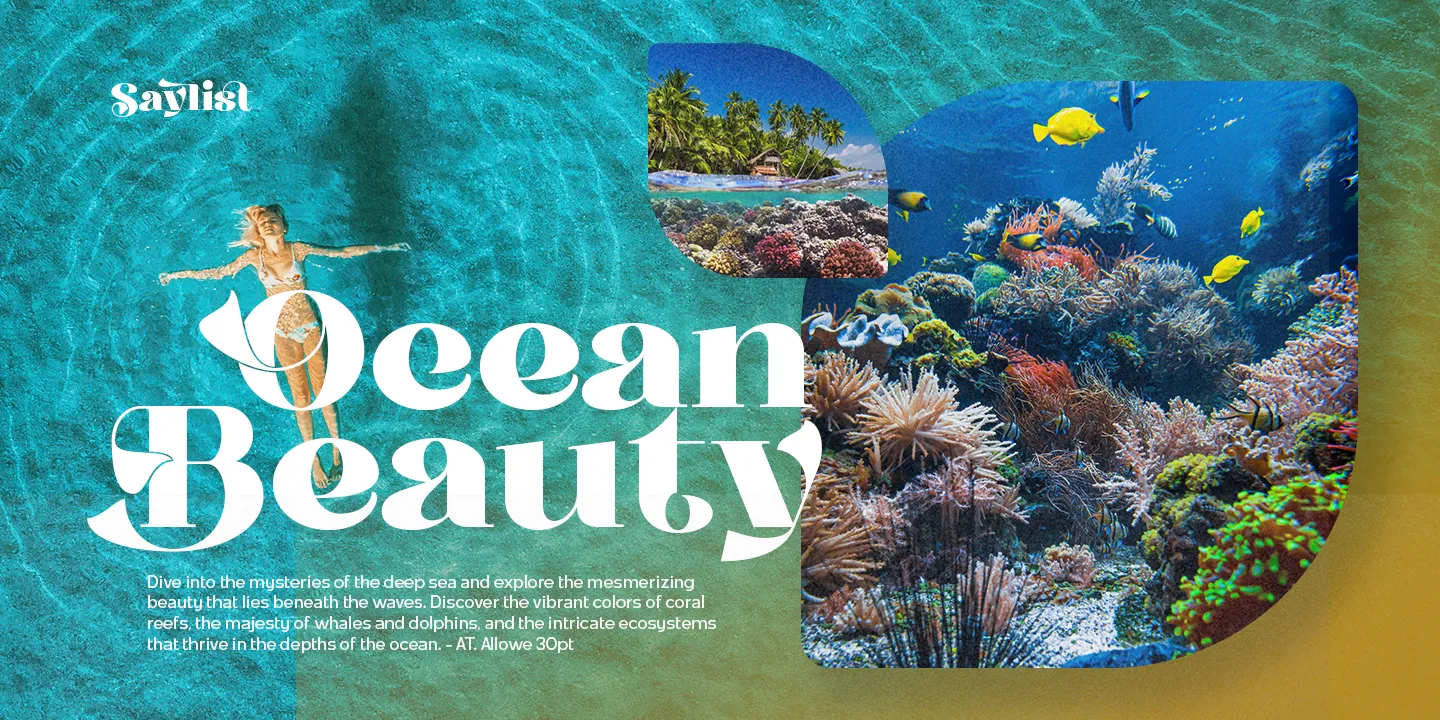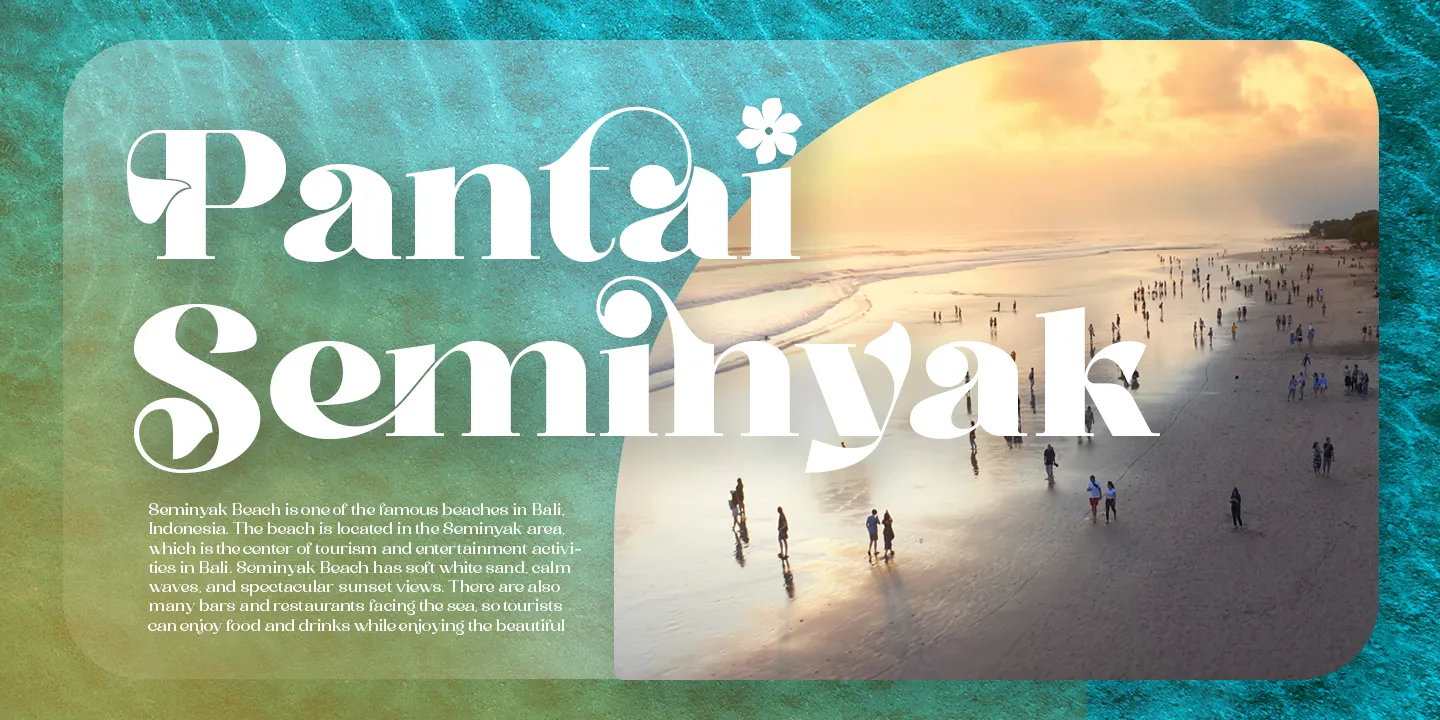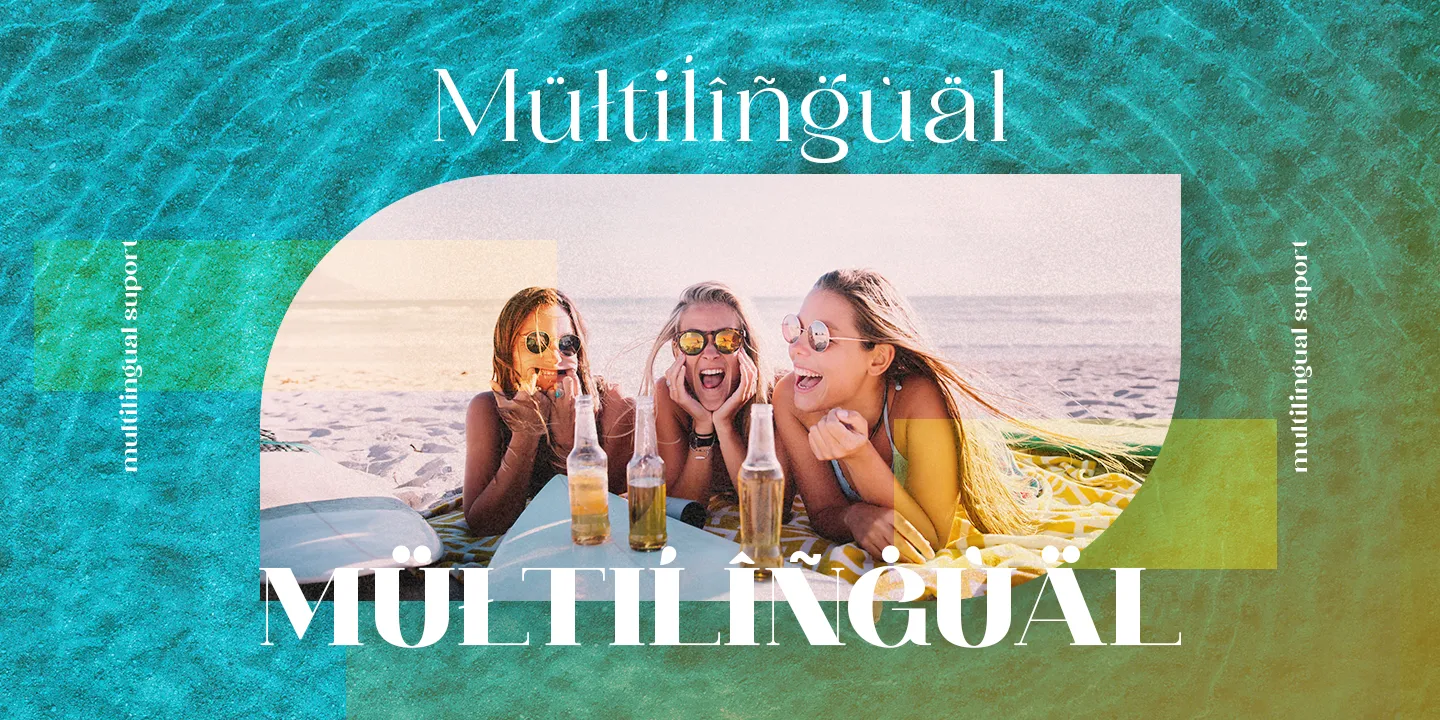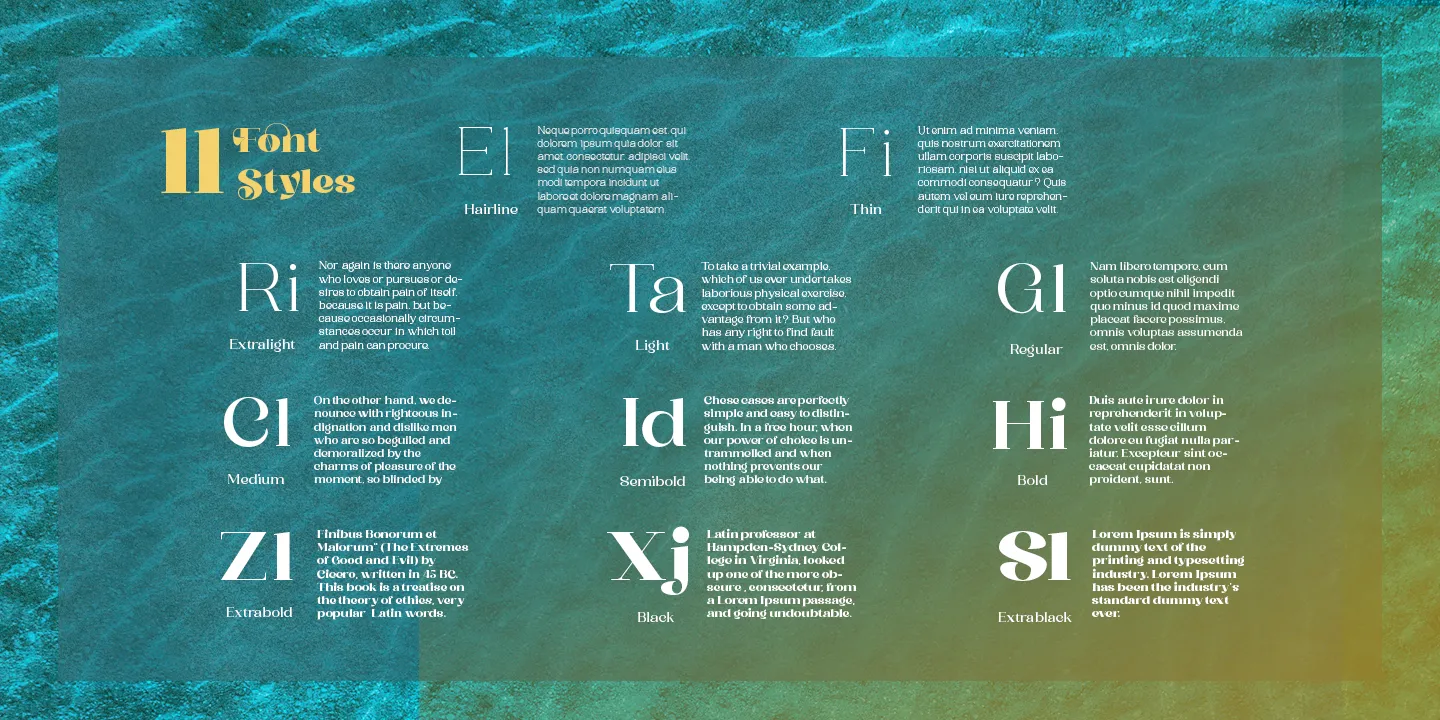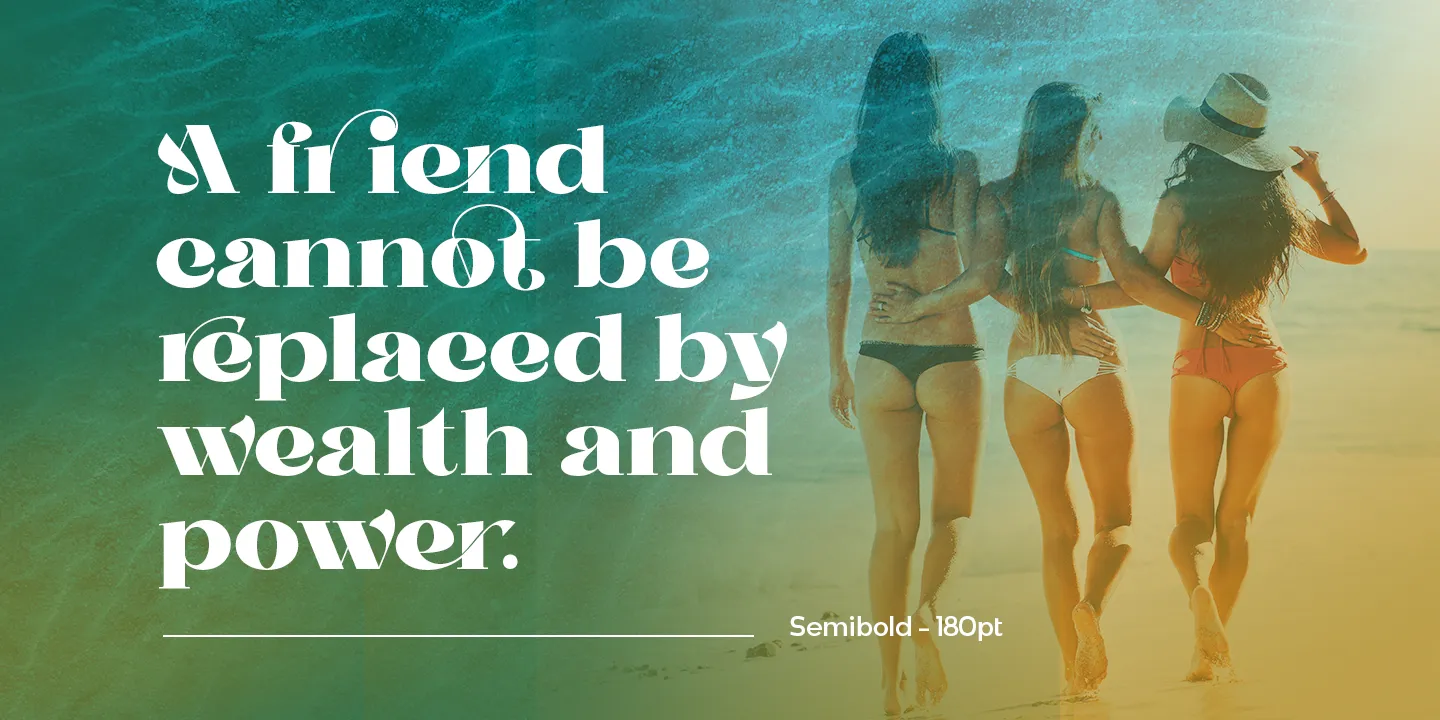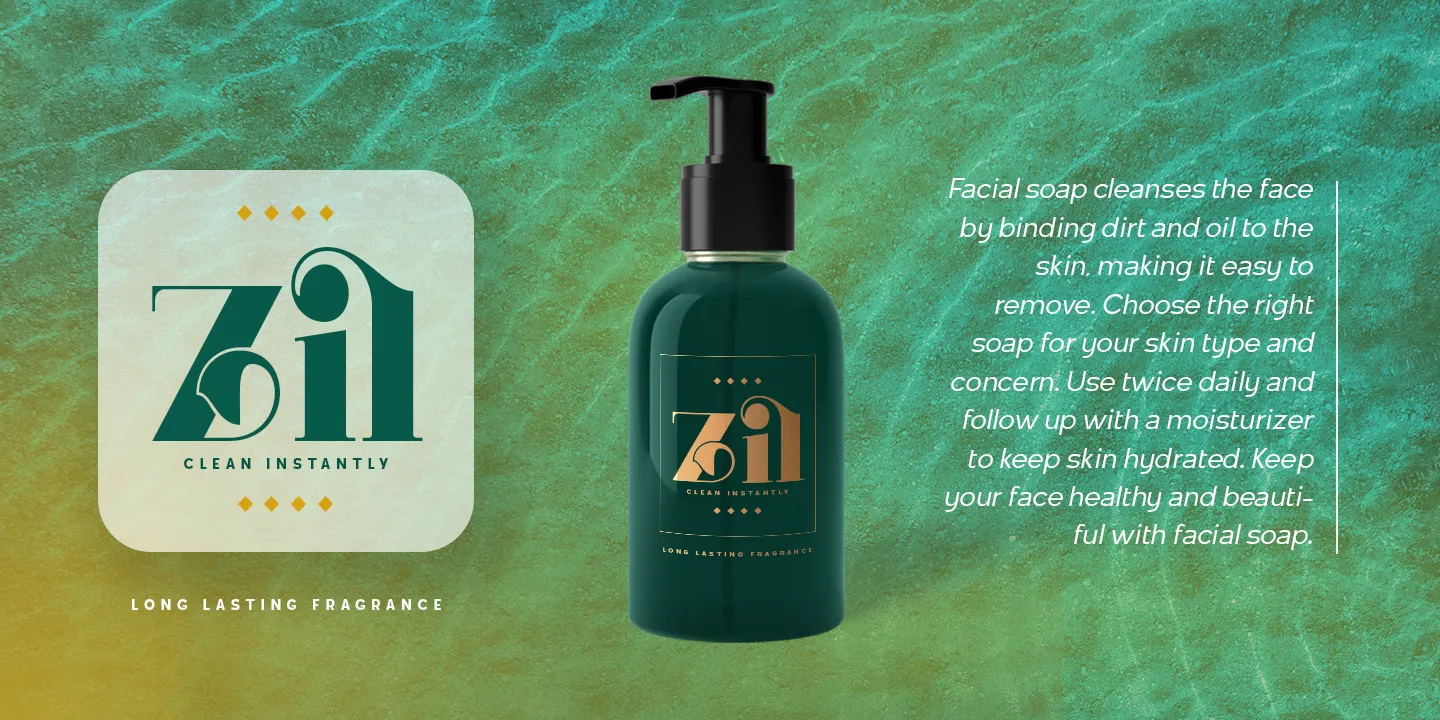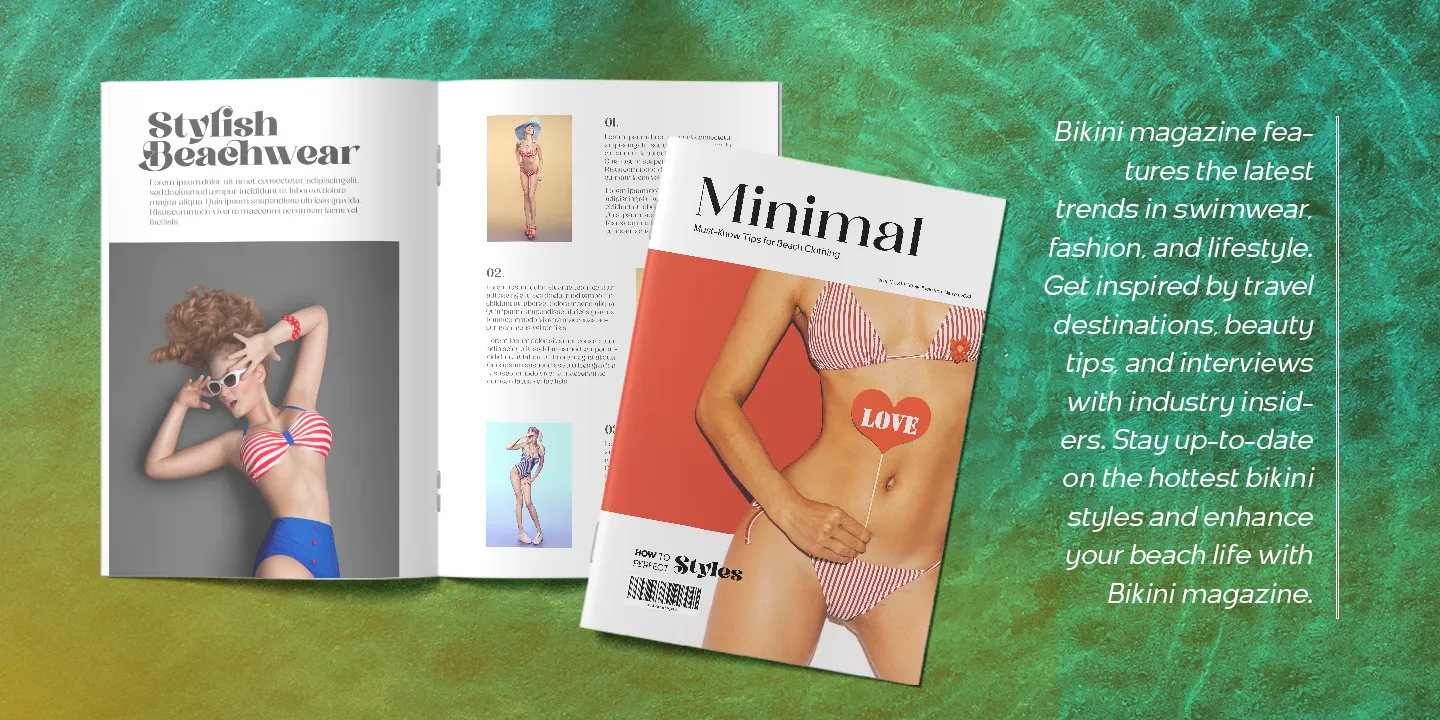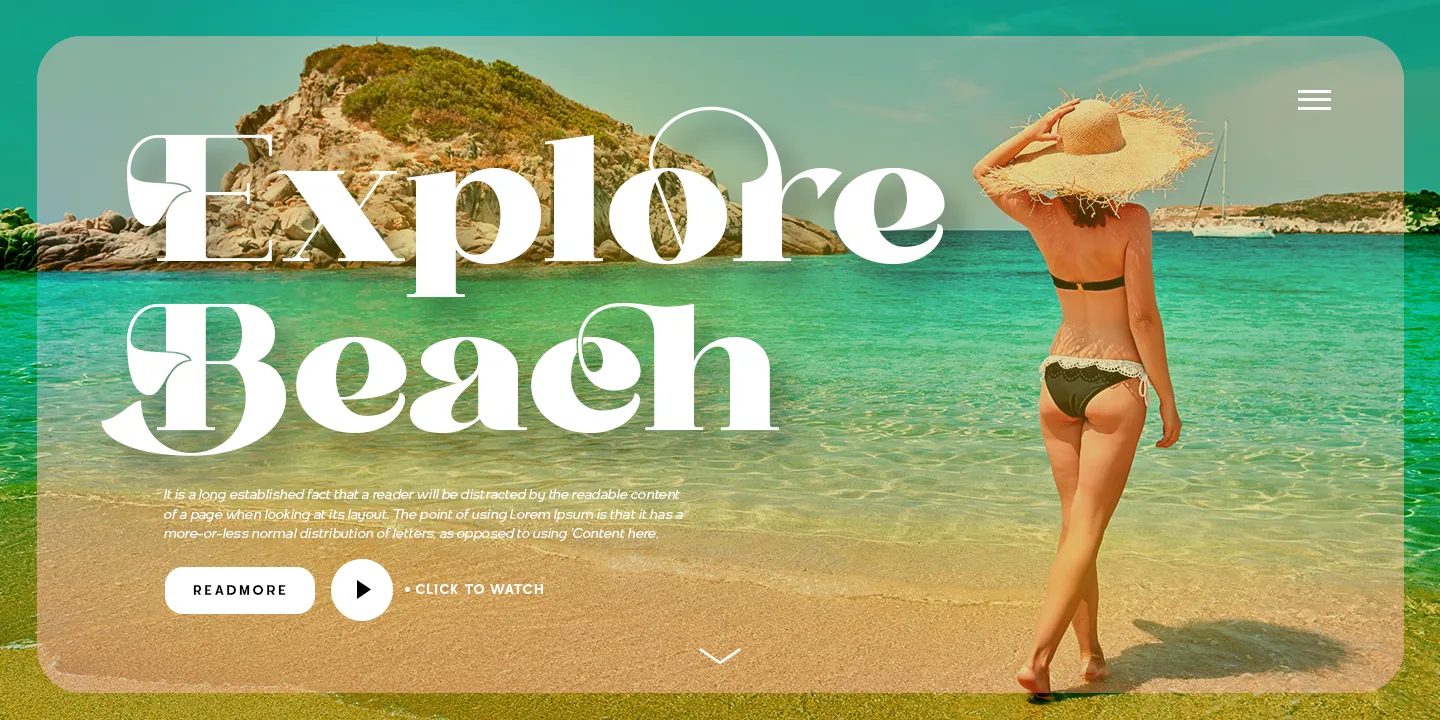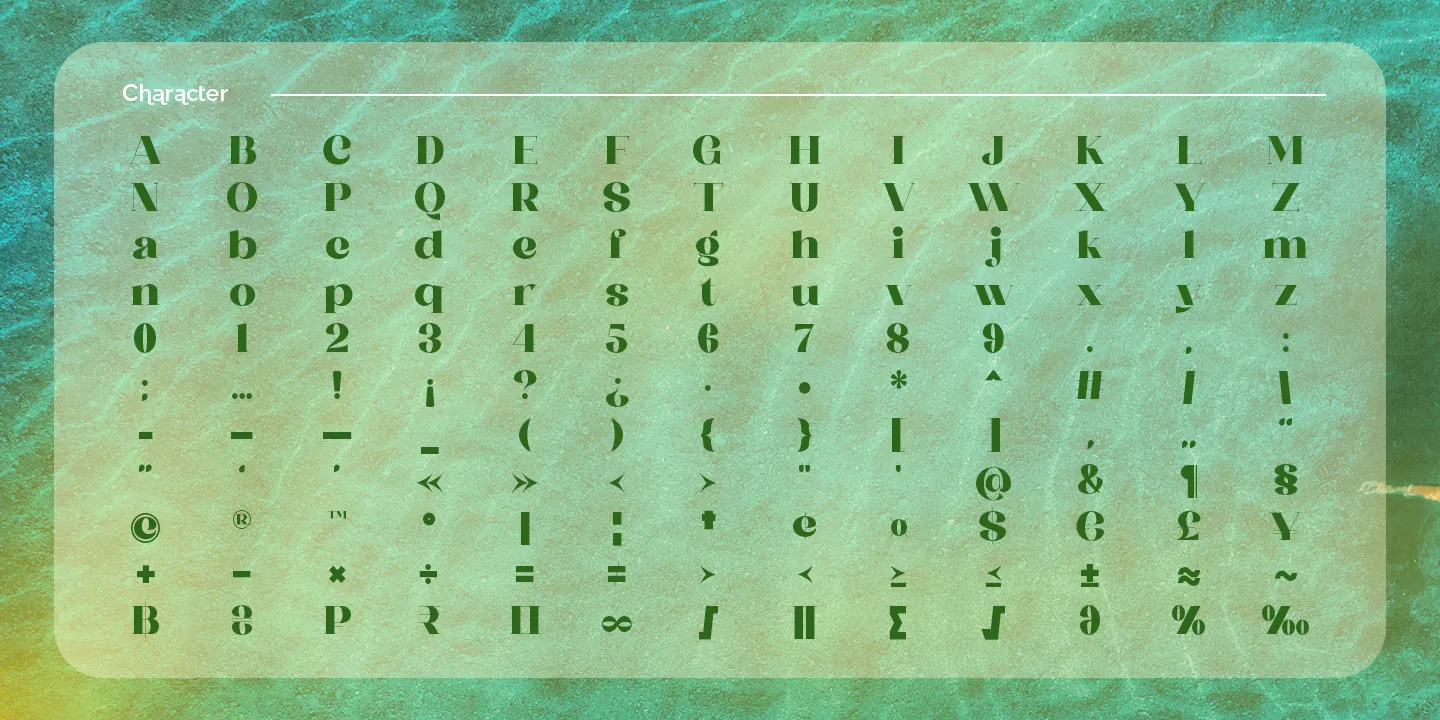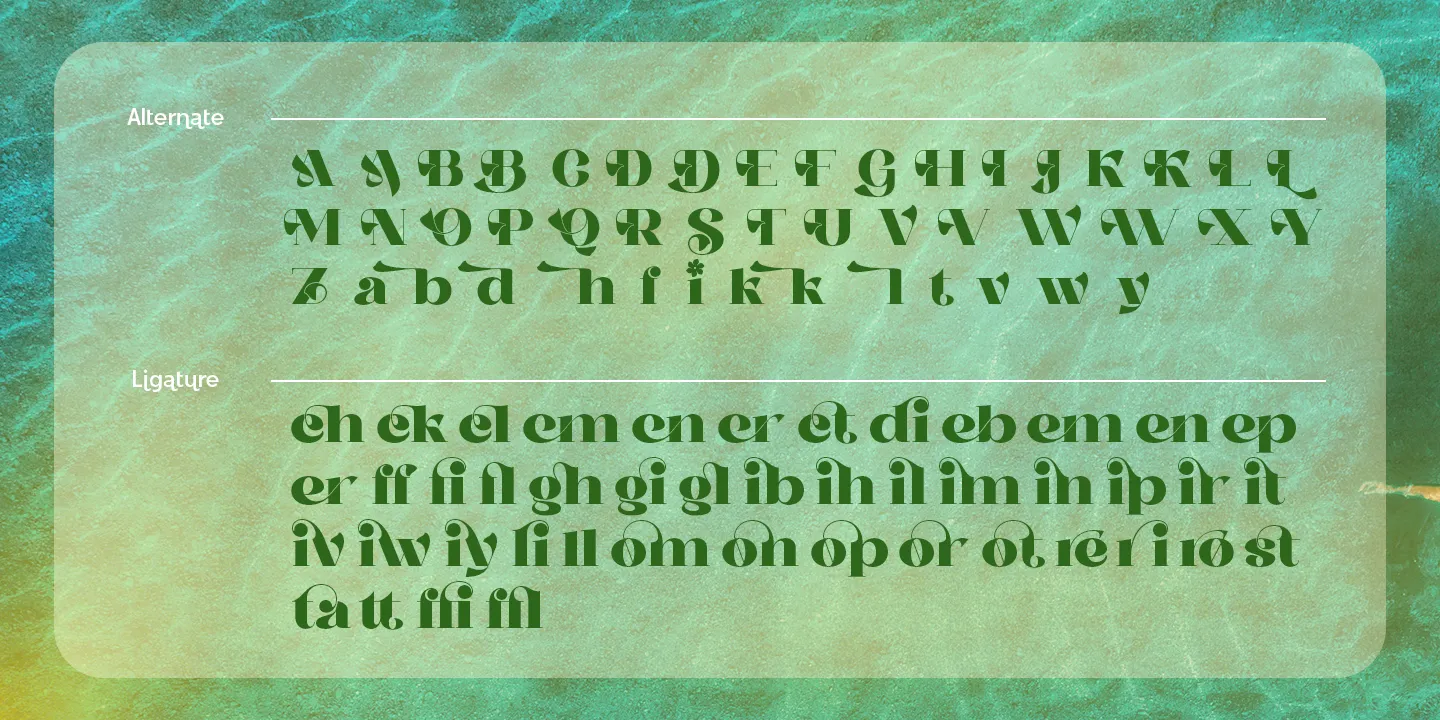
Saylist
Saylist: A Luxurious and Elegant Serif Font
Saylist is a serif font that exudes luxury and elegance. It has various features that will make your designs look beautiful and sophisticated. This font is highly recommended for logos and branding purposes. Still, its versatility allows you to use it for a wide range of design themes, such as luxurious, unique, vintage, and elegant.
One of the standout features of Saylist is its unique shape, which gives off a creative impression. The font's clean lines and sharp edges make it easy to read, while its elegant curves add a touch of sophistication. Saylist's balanced letterforms and consistent spacing provide a harmonious and cohesive look, making it an excellent choice for any design project.
Saylist is a font that can be used for various design projects. Its elegant and luxurious style makes it ideal for fashion, beauty, and lifestyle branding. It can also be used for headings, body text, invitations, and other print materials. Saylist's versatility allows it to be paired with other fonts to create a unique and cohesive design.
Overall, Saylist is a beautiful and versatile serif font that can add a touch of luxury and elegance to any design project. It's unique shape, and balanced letterforms make it a standout choice for logos and branding, while its versatility allows it to be used for various design themes. If you're looking for a font that exudes sophistication and creativity, Saylist is an excellent choice.
• ffi ffi
• ffl ffl
• ch ch
• ck ck
• cl cl
• cm cm
• cn cn
• cr cr
• di di
• eb eb
• em em
• en en
• ep ep
• er er
• fl fl
• gh gh
• gi gi
• gl gl
• ib ib
• ih ih
• il il
• im im
• in in
• ip ip
• ir ir
• it it
• iv iv
• iw iw
• iy iy
• li li
• om om
• on on
• op op
• or or
• ot ot
• re re
• ri ri
• ro ro
• ta ta